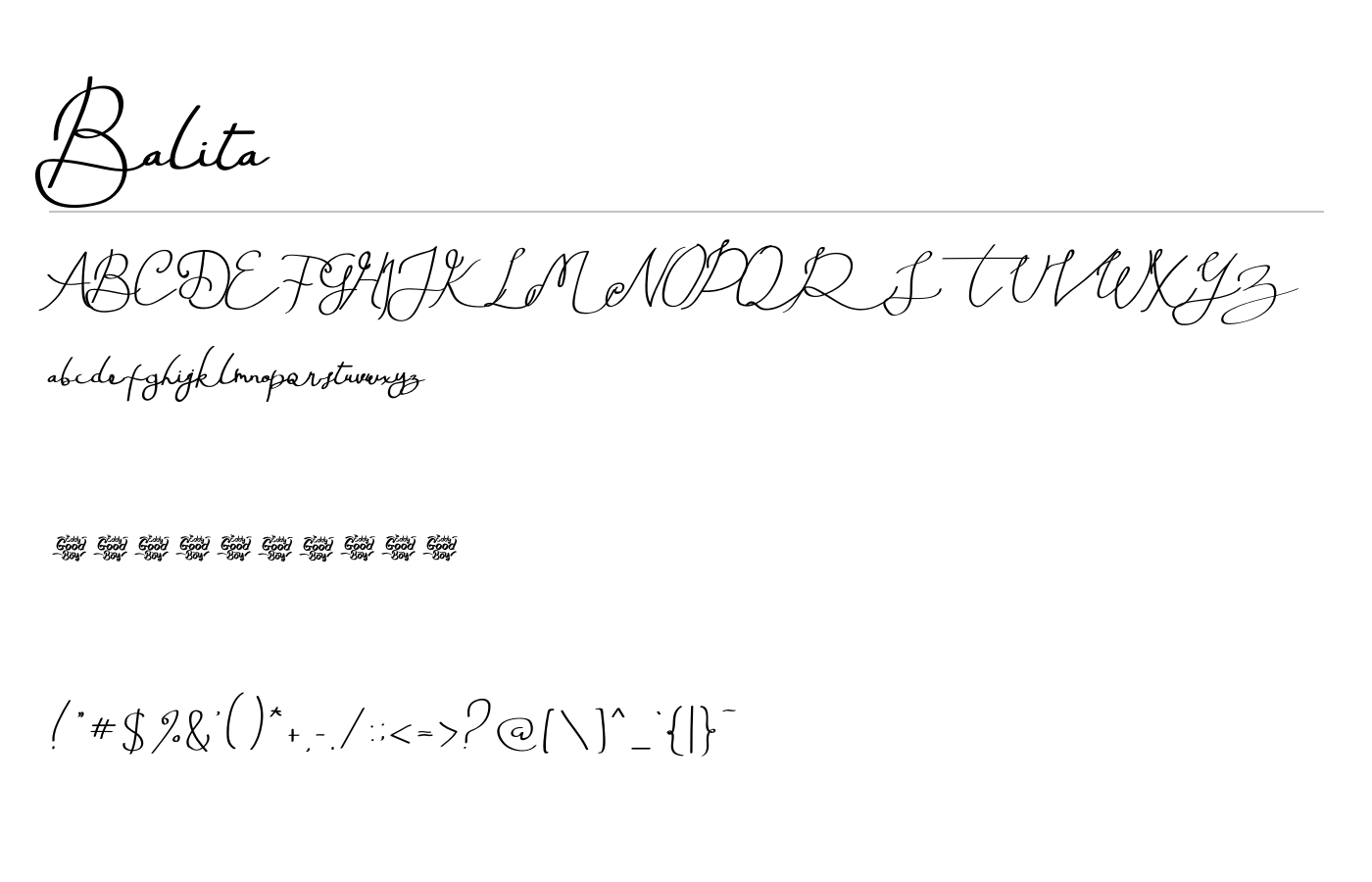
Balita is a delicate, handwritten script font with elegant, flowing letterforms that capture a casual yet refined aesthetic. Its thin strokes and graceful curves make it ideal for creative projects looking to convey a personal, artistic touch, such as invitations, branding, or stylish editorial designs. This font shines where a soft, intimate feeling is desired, adding a unique and sophisticated flair without overwhelming the design.
Balita Font
About Balita Font
| Font family | Balita Font |
| Designer | Nur Edi Prayitno |